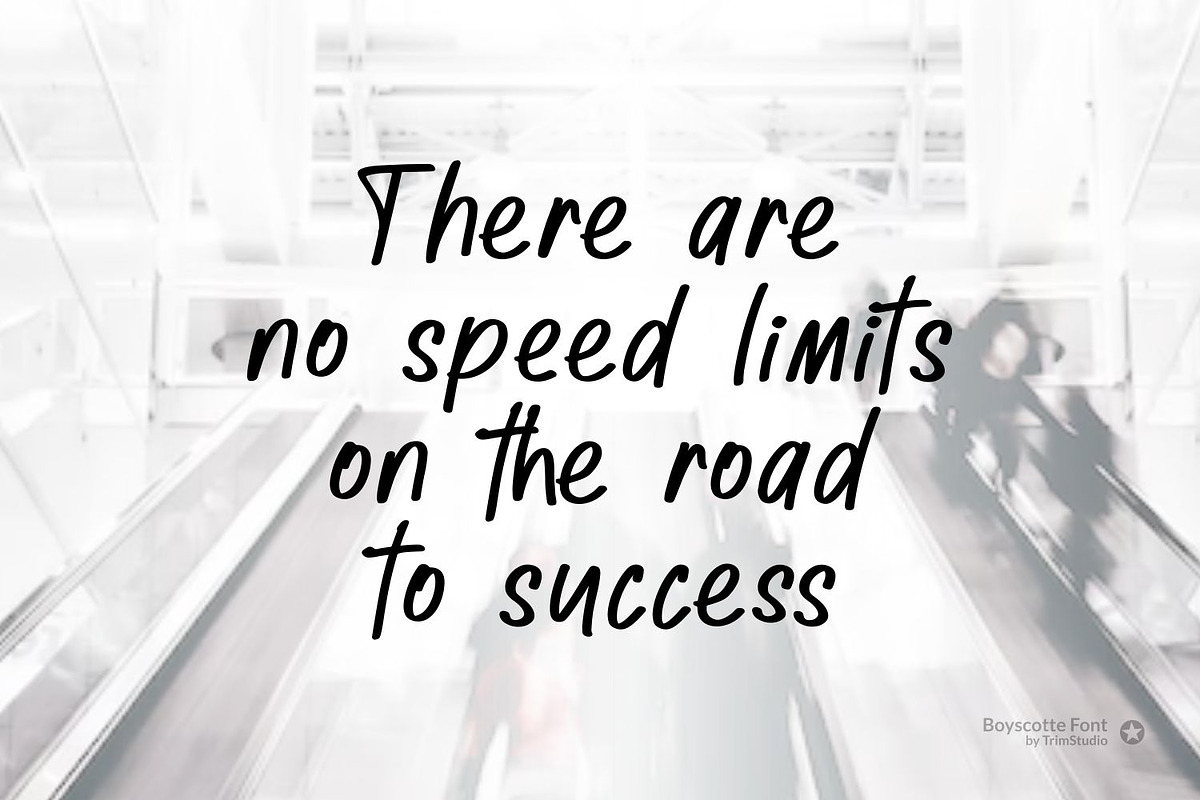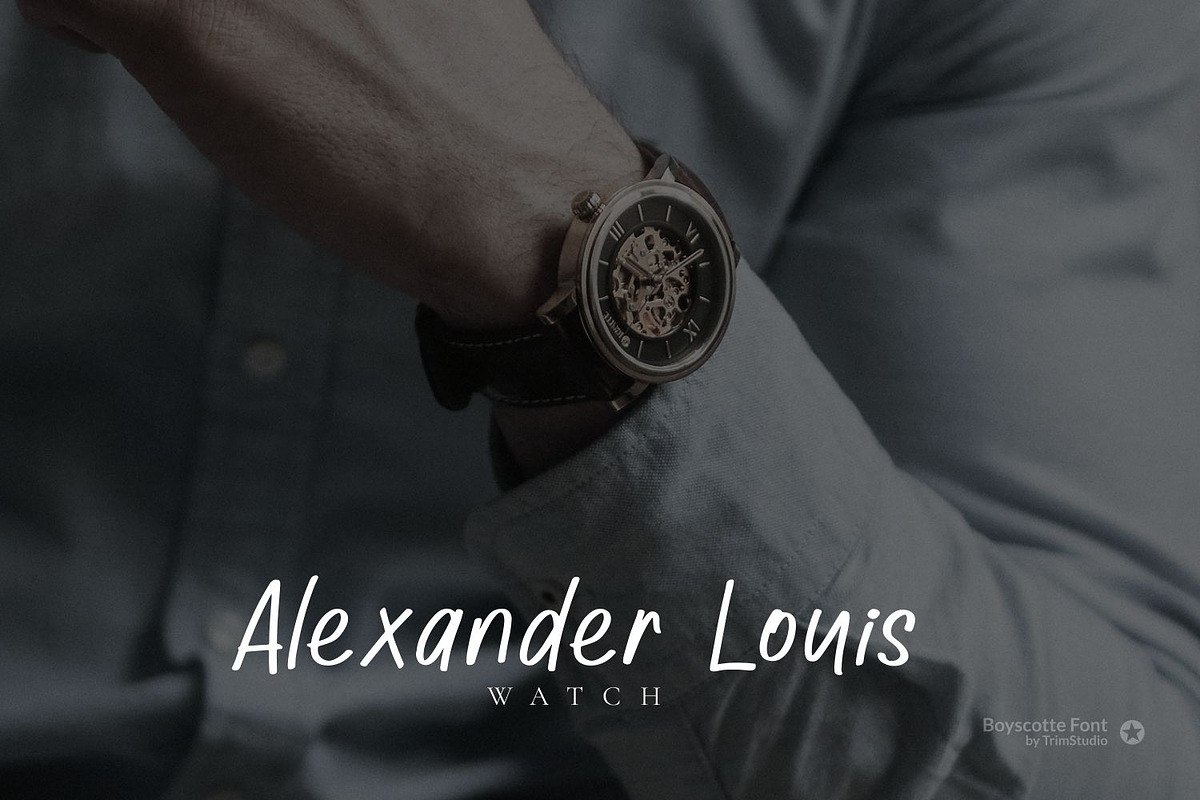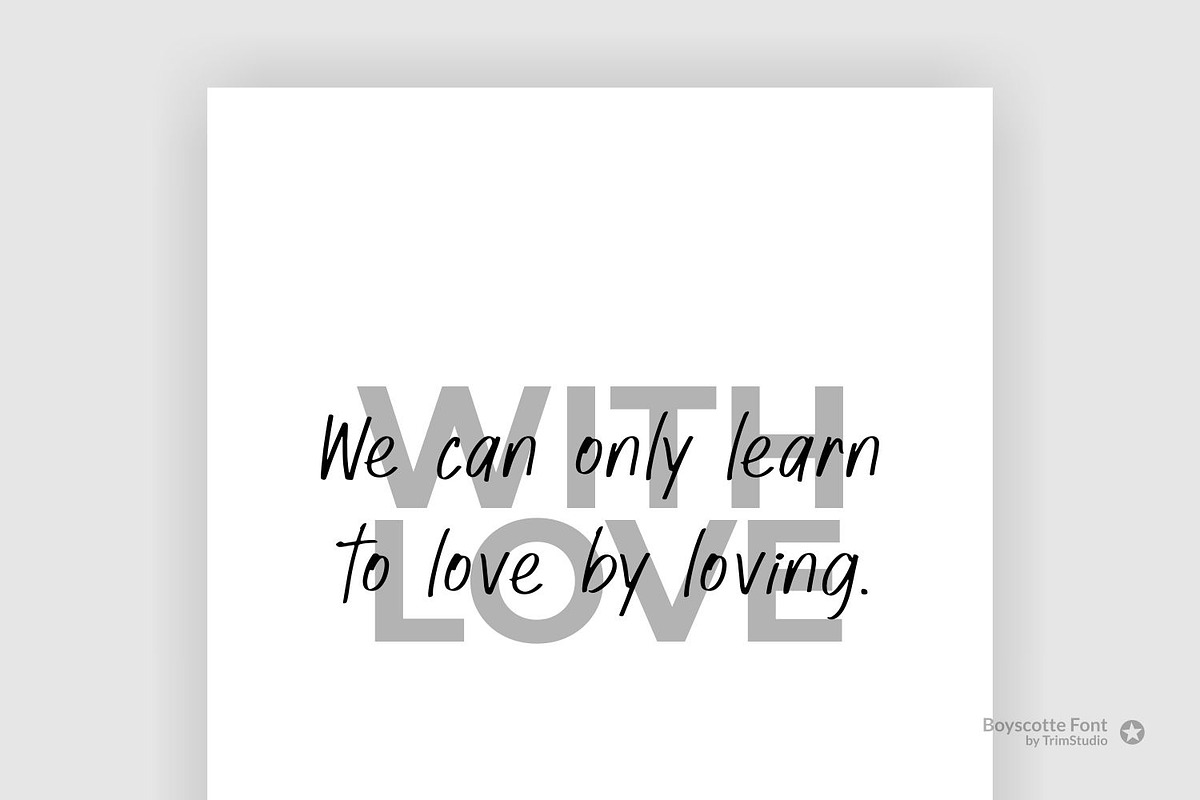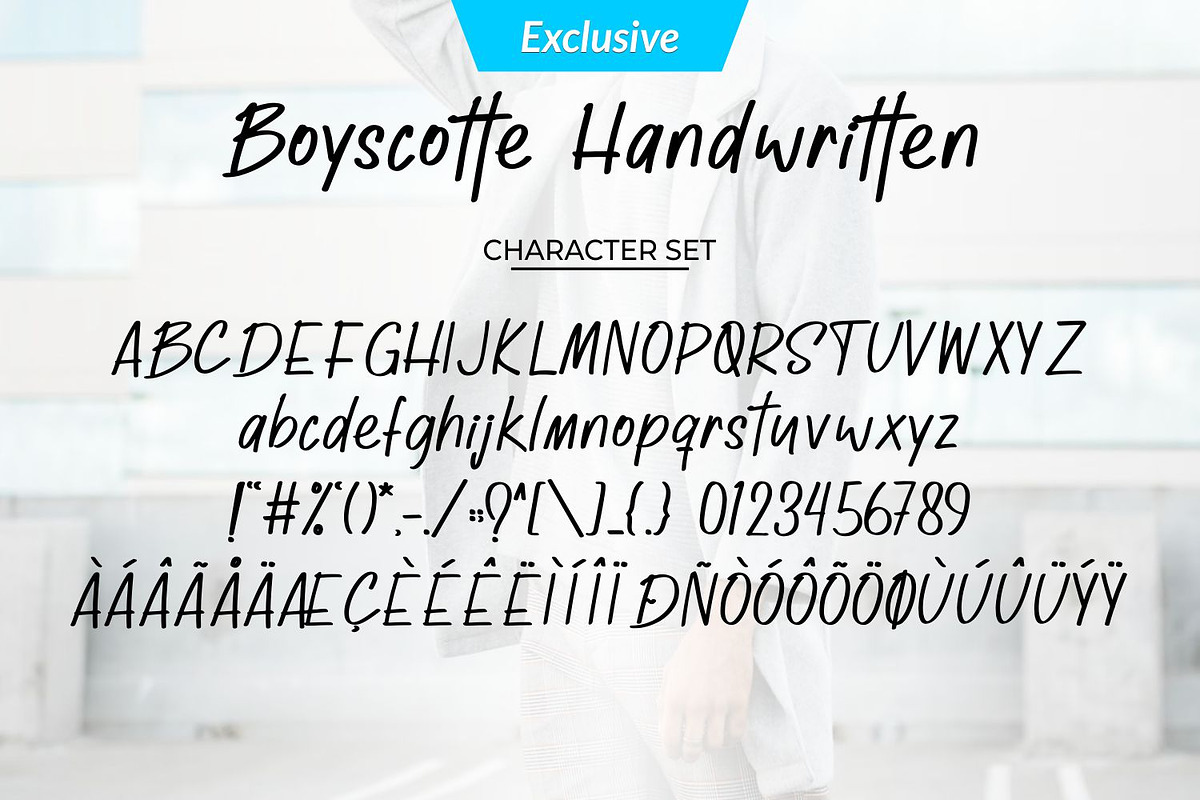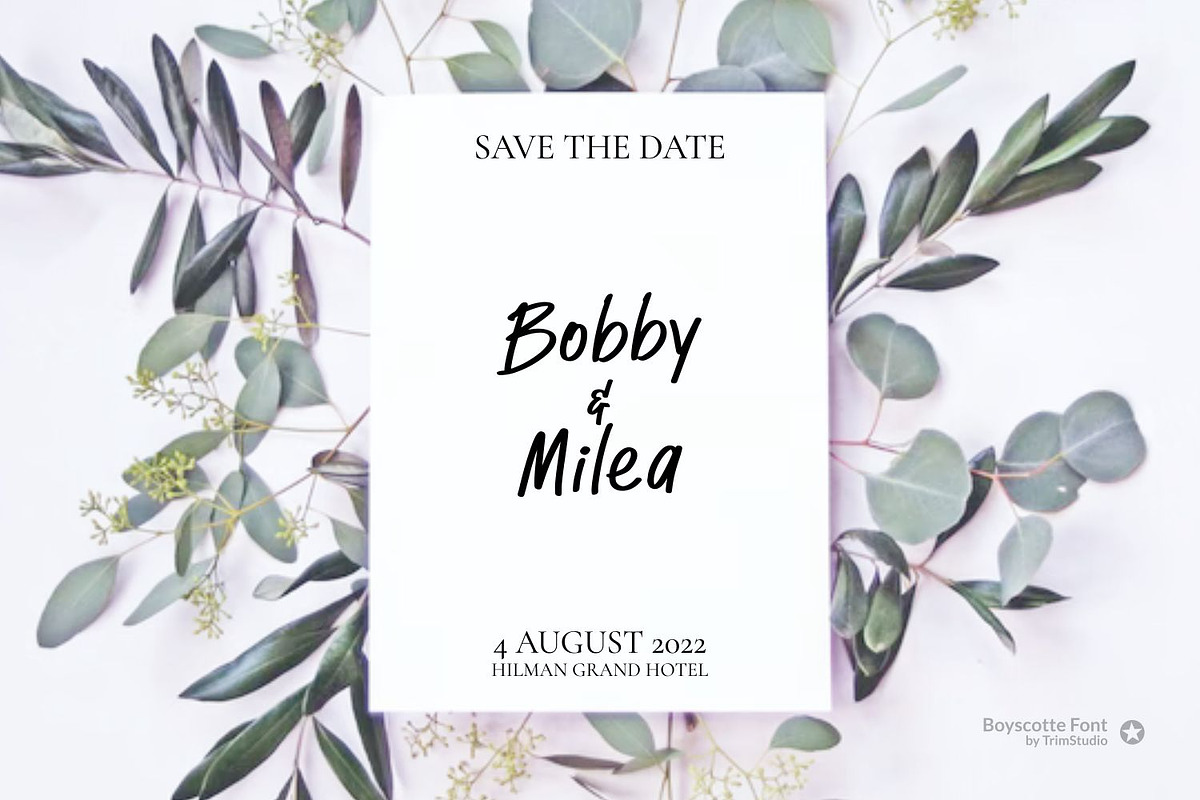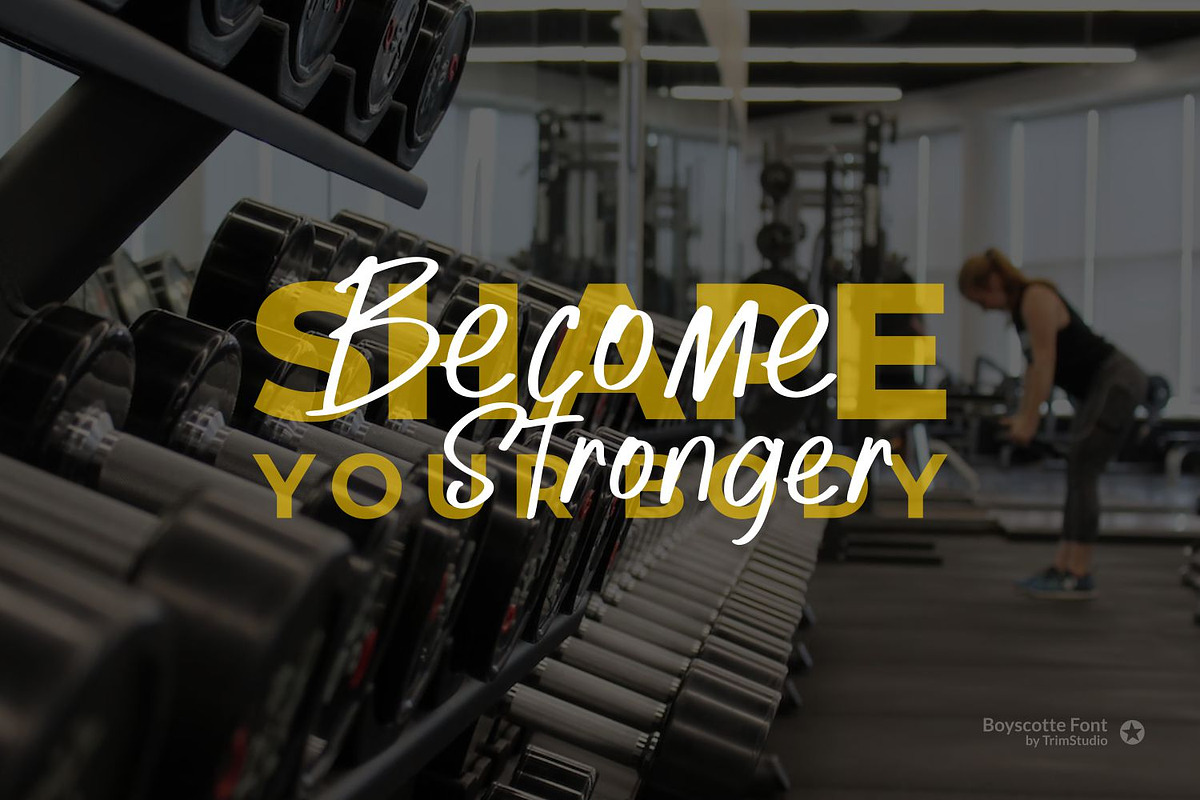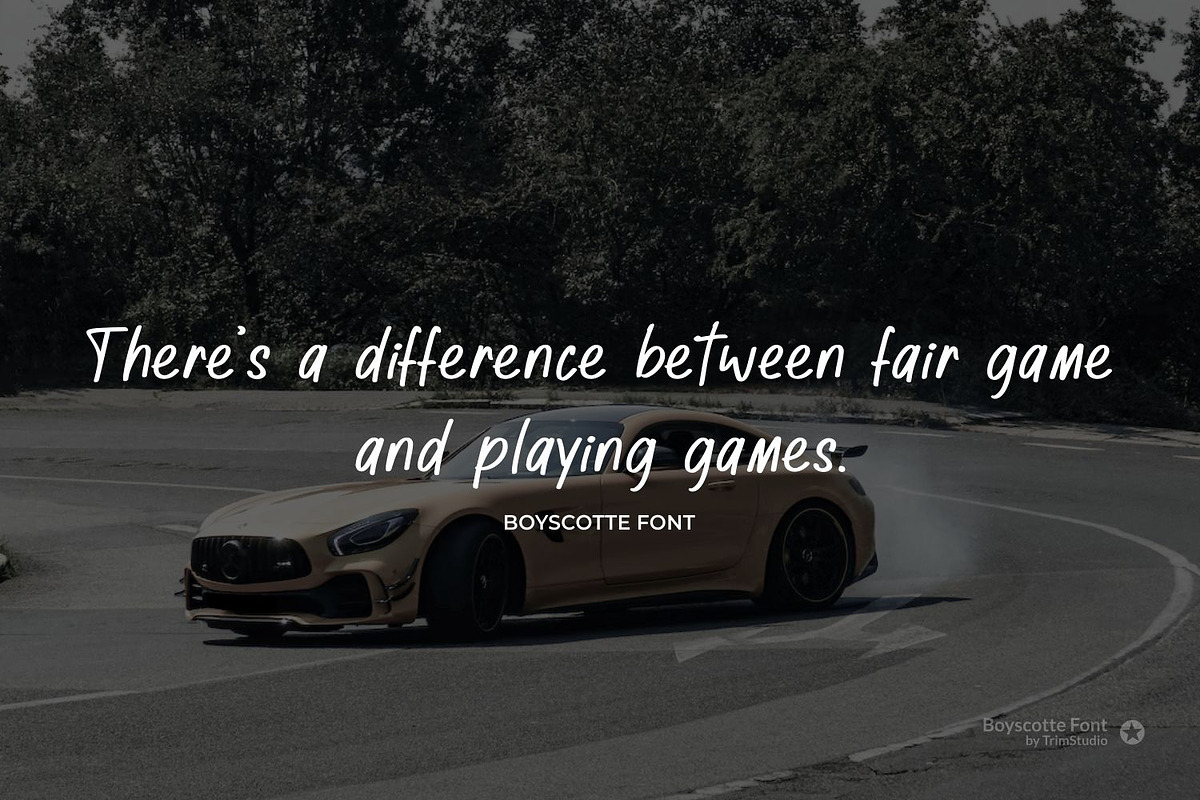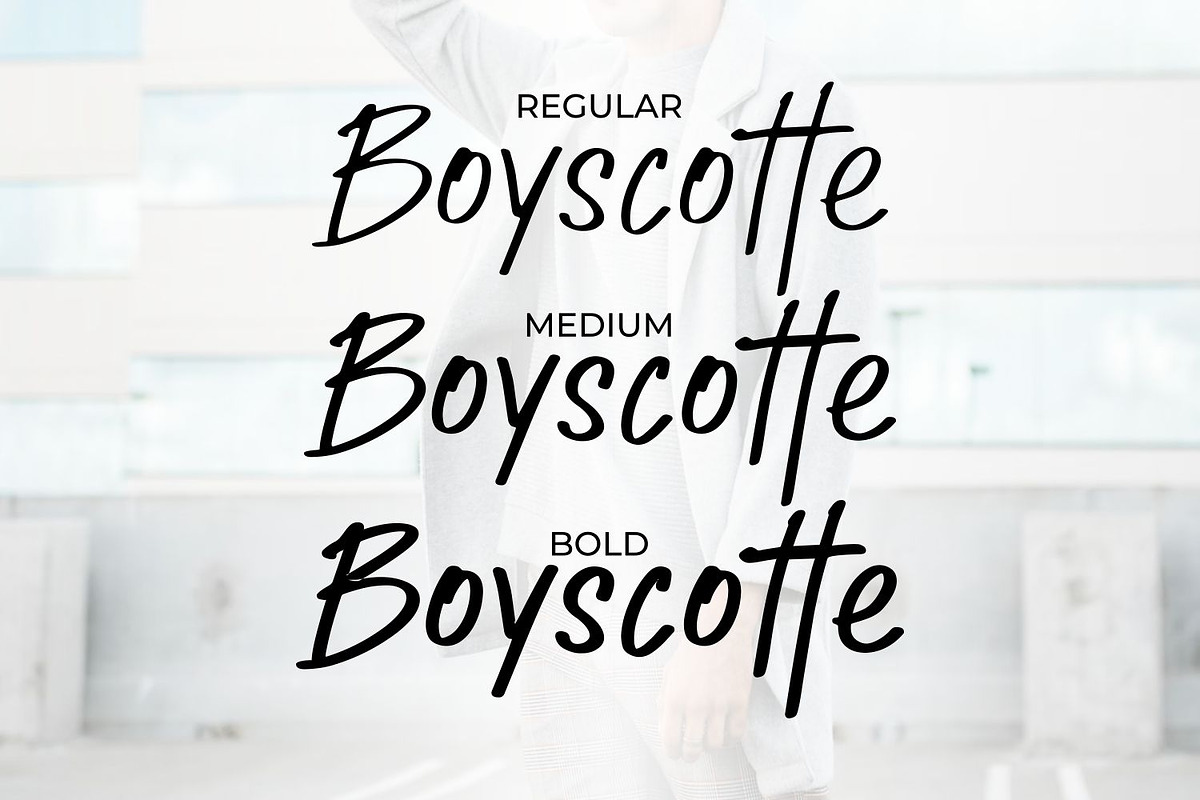
Boyscotte Mature Handwritten Font
Boyscotte Handwritting font, a elegant mix beauty and masculine font, its crafted to deliver the simple style it self, and brings mature on design style,
Boyscotte also have 3 different weight, so you can easily combine and adjust the design theme with it
Its perfectly suited for crafter and graphic artist to complete their design such as invitation, advertisement, poster, logo, birthday, product sign, magazine, book, and many more!
even so contains All Standard glyphs and punctuations